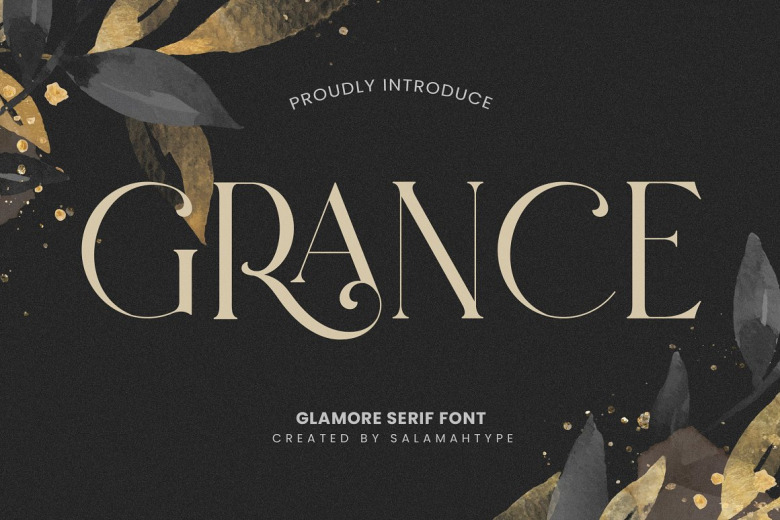
Grance Font
Introducing our new serif called “GRANCE” – An elegant serif font with a luxurious and clean style is perfect for websites, modern logos, brand identities, social media quotes, wedding, stationery and anything you want!
Grance Serif Font